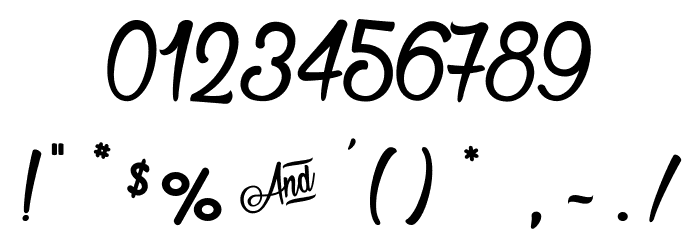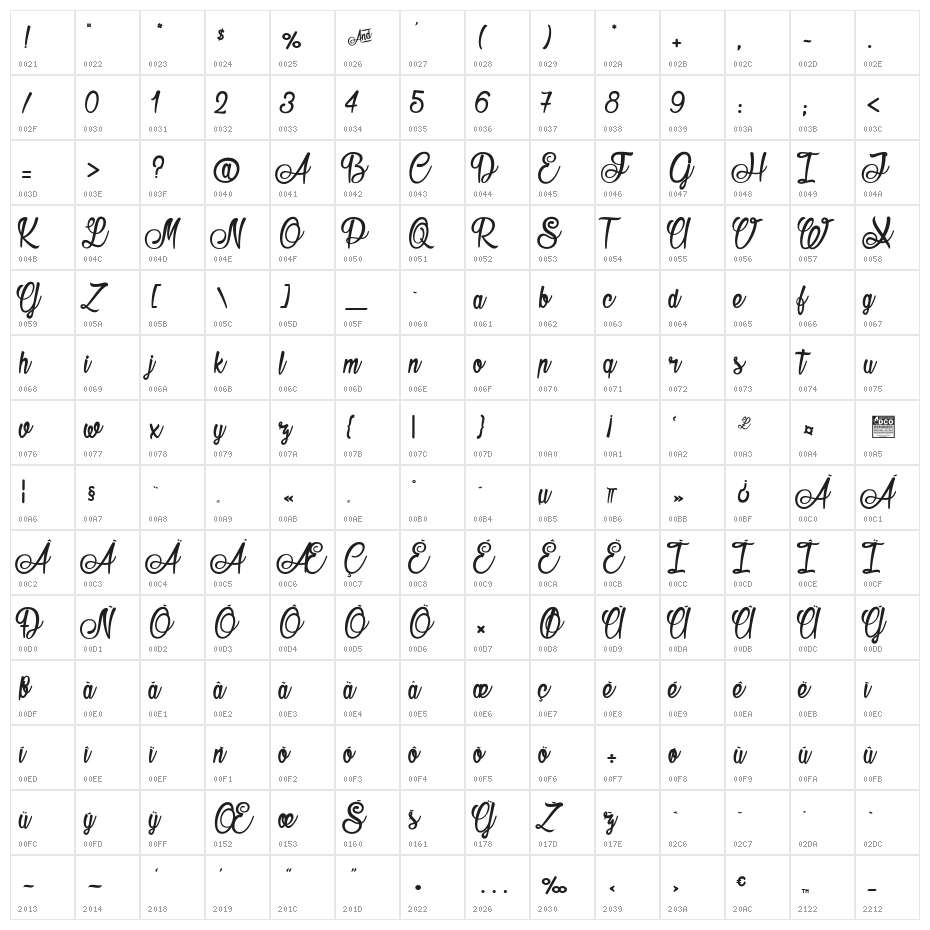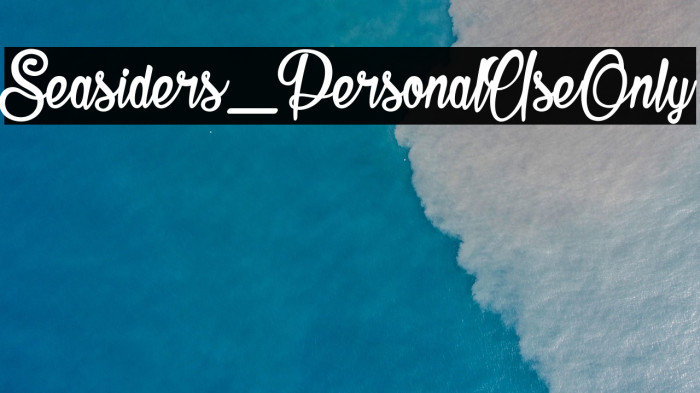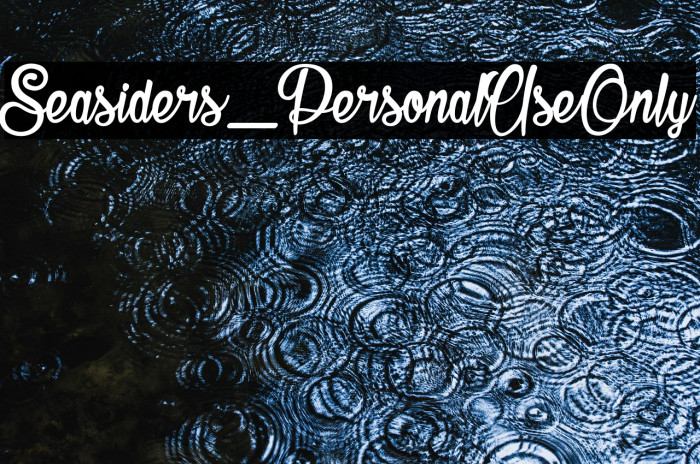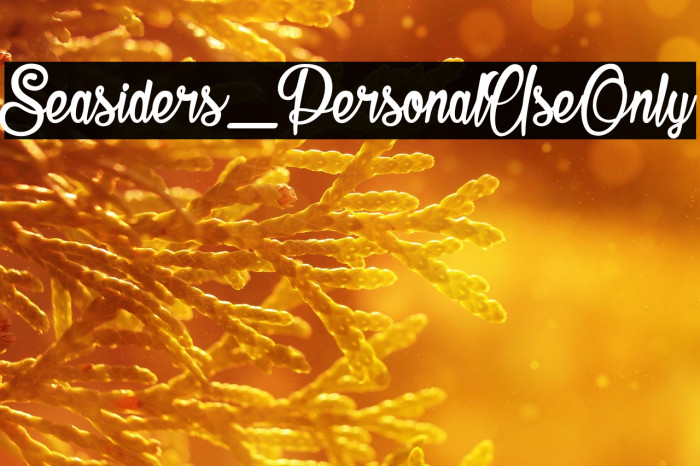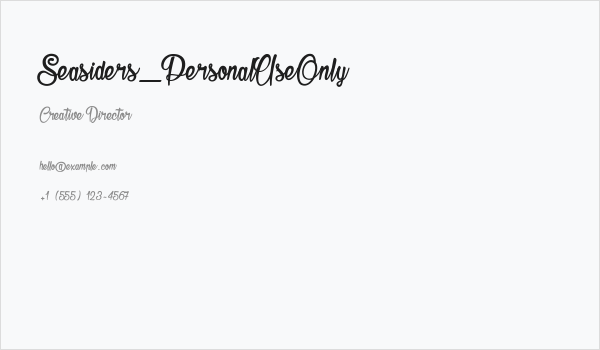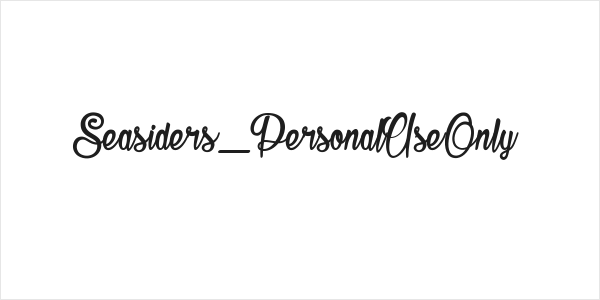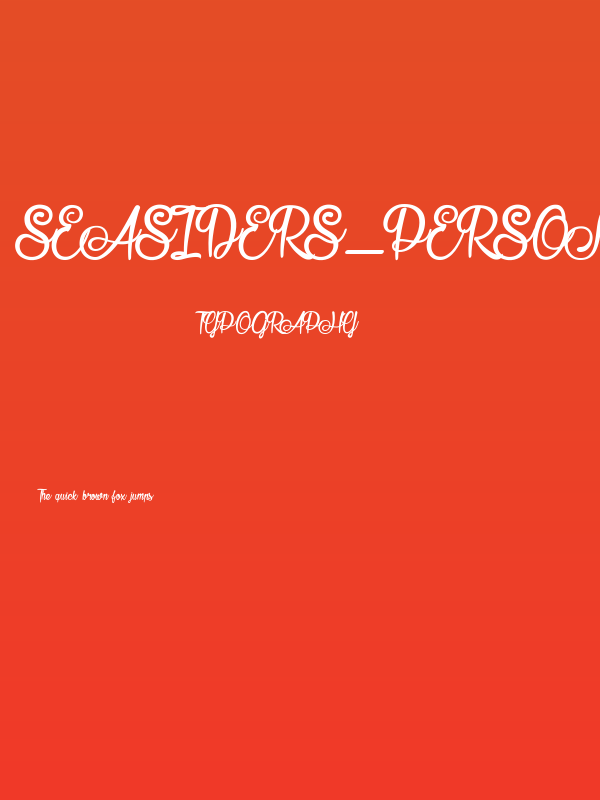
Seasiders_PersonalUseOnly Font
Seasiders_PersonalUseOnly Description
This font features a playful and elegant script style with a handwritten appearance. The uppercase letters are characterized by their flowing, interconnected strokes, giving a sense of movement and fluidity. The lowercase letters maintain a consistent style, with rounded edges and a smooth, cursive flow. Numbers are bold and clear, matching the overall aesthetic of the letters. Special characters are creatively designed, adding a unique flair to the font. The font's style is both decorative and functional, making it suitable for a variety of creative projects.
| Use Case | Logos, Invitations, Decorative Text |
| Proposed Projects | Ideal for wedding invitations, greeting cards, logos, and branding materials. |